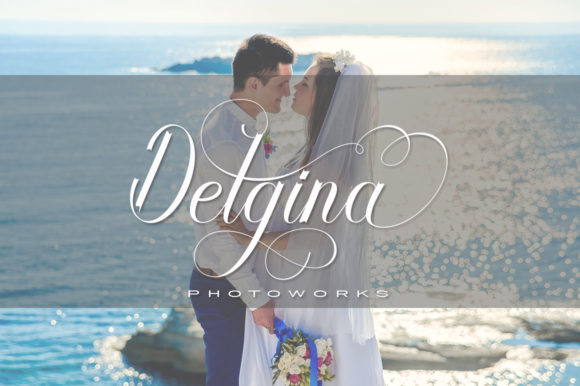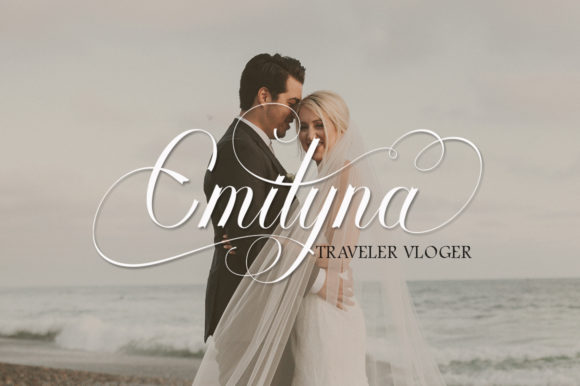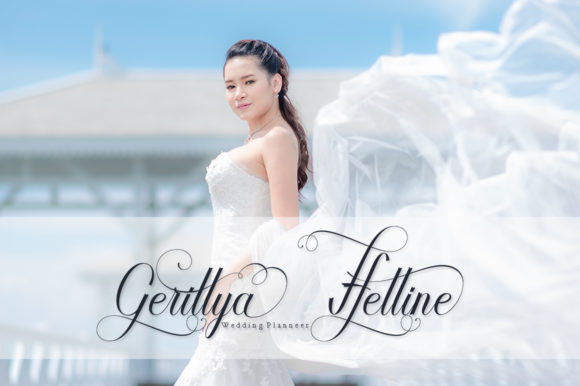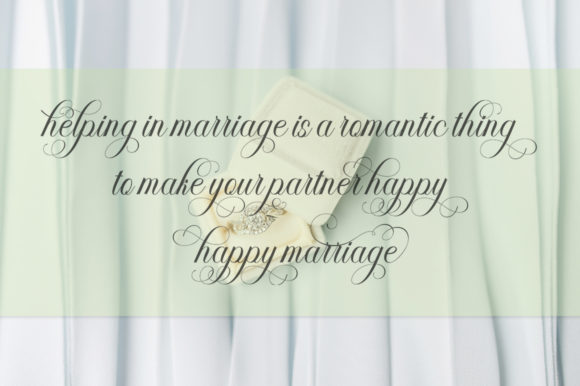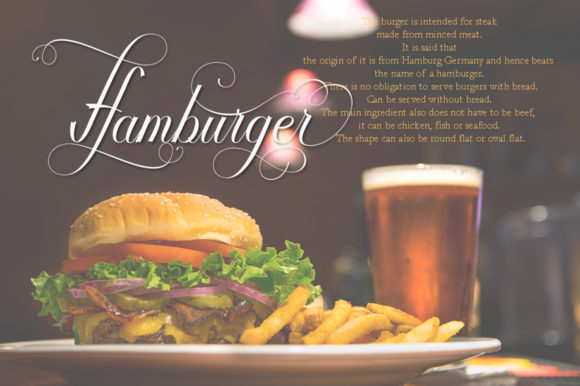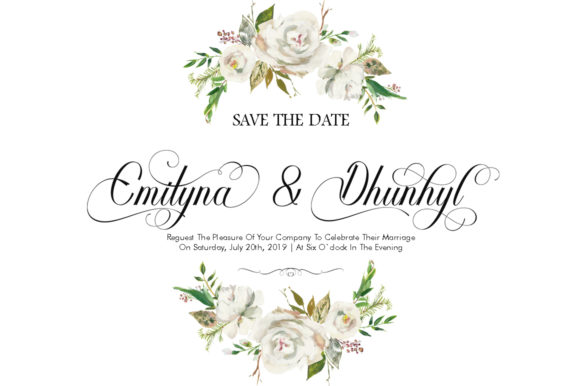
Introduction to Harendegha Script Font Font
Fonts play a crucial role in design, and the Harendegha Script Font font is a typeface that brings both character and versatility to any project. Whether you’re working on a branding project, a website, or a print design, the Harendegha Script Font font offers a unique style that can elevate your work.
Harendegha is a romantic and delicate handwritten font with a joyful twist.
Get inspired by this magnificent font .
Key Features of Harendegha Script Font Font
Why Choose Harendegha Script Font Font?
The Harendegha Script Font font is more than just a typeface – it’s a design tool that helps you communicate your message with style and clarity. Its unique character set and versatile design make it suitable for a wide range of applications, from elegant invitations to bold headlines.
With its carefully crafted letterforms and balanced proportions, the Harendegha Script Font font ensures readability and visual appeal across all mediums.
What makes Harendegha Script Font font special?
The Harendegha Script Font font stands out with its unique design, exceptional readability, and versatility across various design applications.